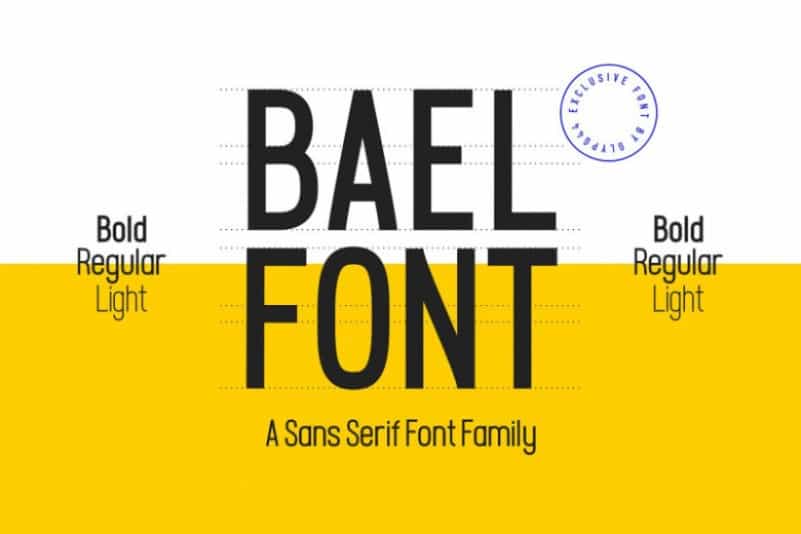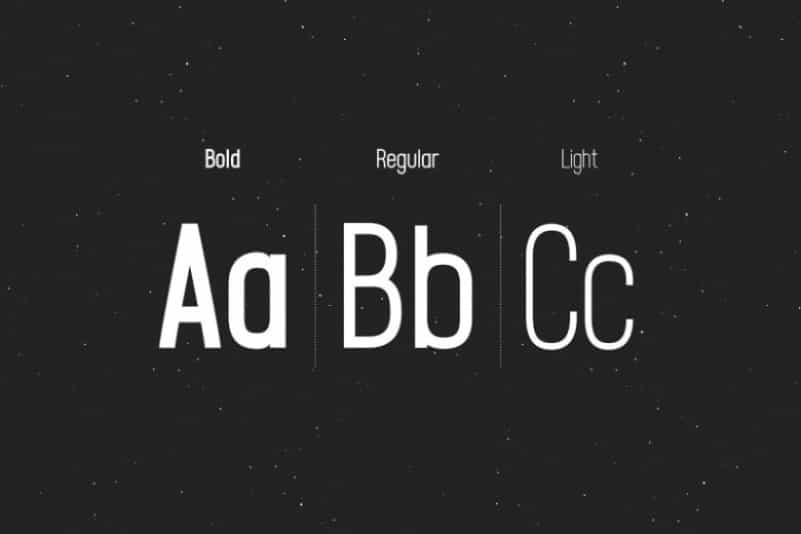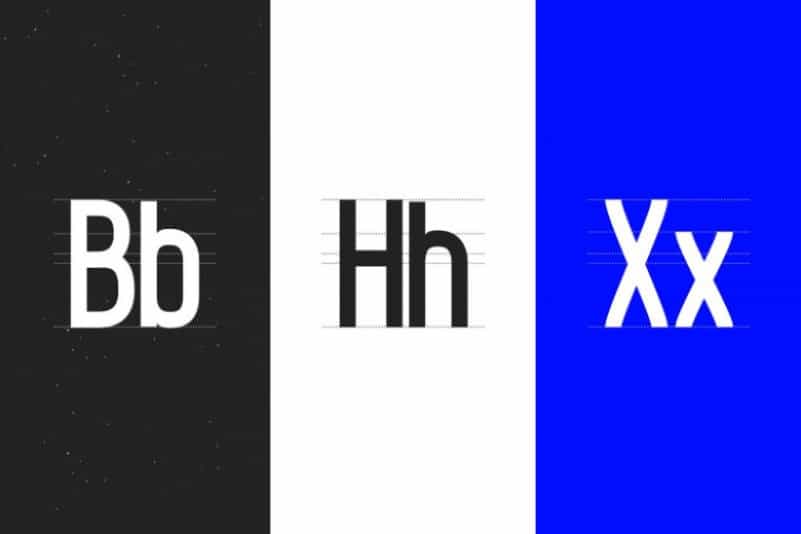
Discover Bael Font Family, part of the Sans Serif Display collection—a versatile and unique font perfect for adding a personal touch to your projects. Download it for free and enjoy crafting designs with style, from invitations to social media posts. This font is available exclusively for personal use, giving you the freedom to create without limits. Unlock your creativity with Bael Font Family today!
Introducing Bael Light Sans Font. It is created and distributed by Glyph44. It is a sans serif font family that was designed based on the simple geometric structures and it is a kind of a tribute to the origins of the early DIN style lettering from the 1920s.